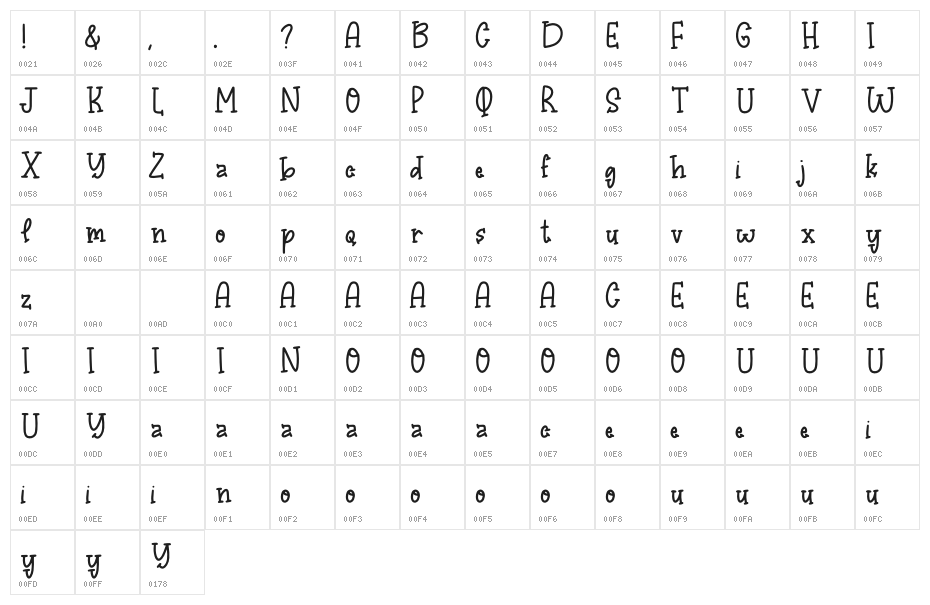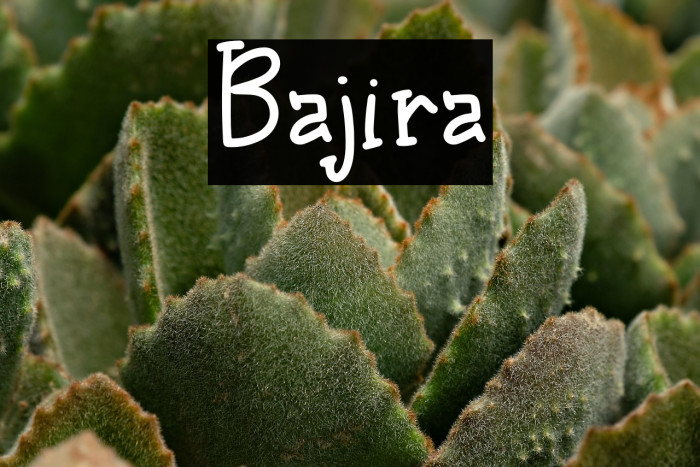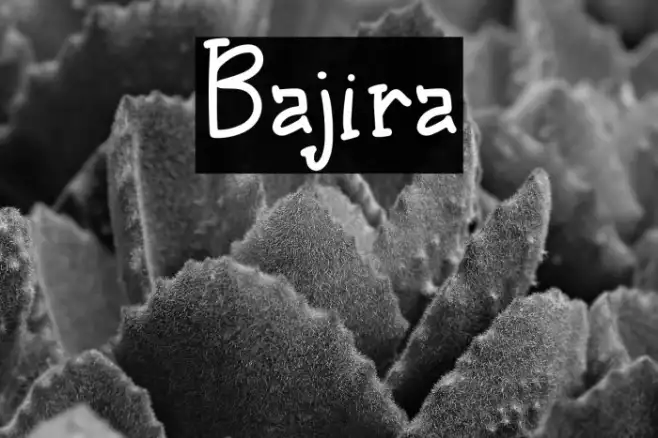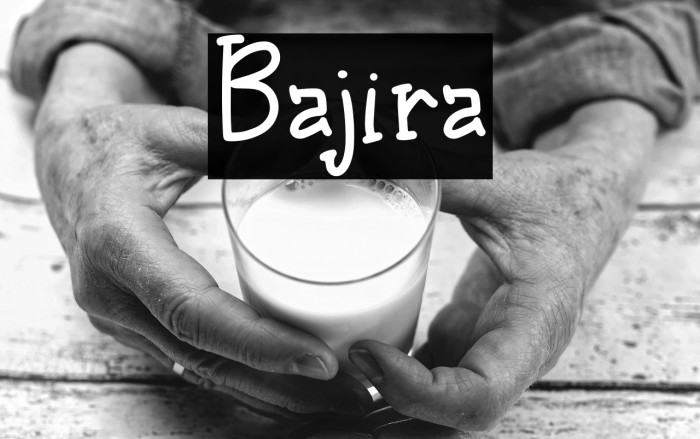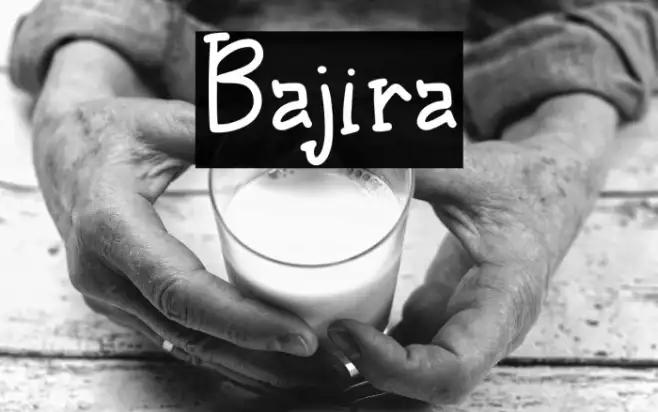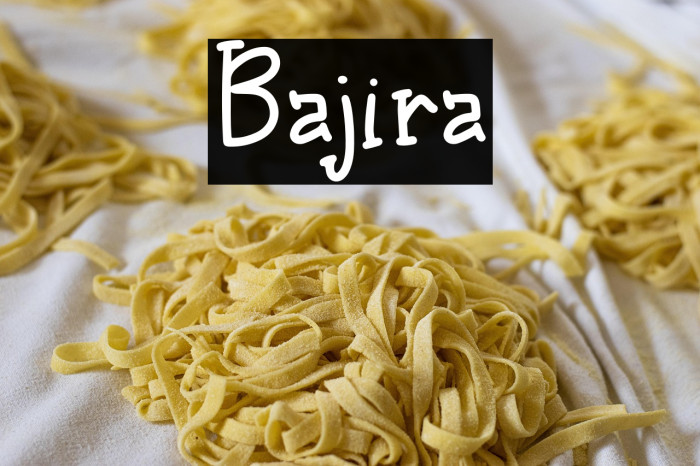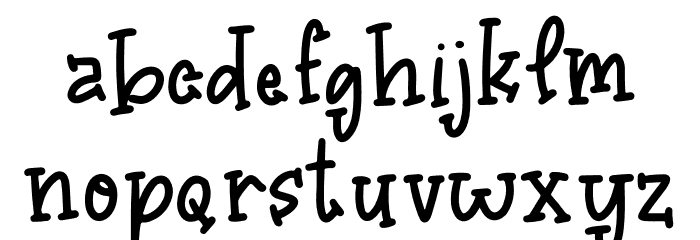
Bajira Font
Bajira Description
This playful and whimsical font features a hand-drawn style with a casual and friendly appearance. The uppercase letters are tall and slightly narrow, with a mix of straight and curved lines that give them a quirky charm. The lowercase letters maintain the same playful aesthetic, with some characters like 'g' and 'y' having distinctive loops and tails. The font's overall design is informal and approachable, making it ideal for projects that require a touch of fun and creativity. The character spacing is relatively normal, ensuring readability while maintaining its unique style.
| Proposed Projects | Ideal for children's books, greeting cards, playful branding, and creative posters. |